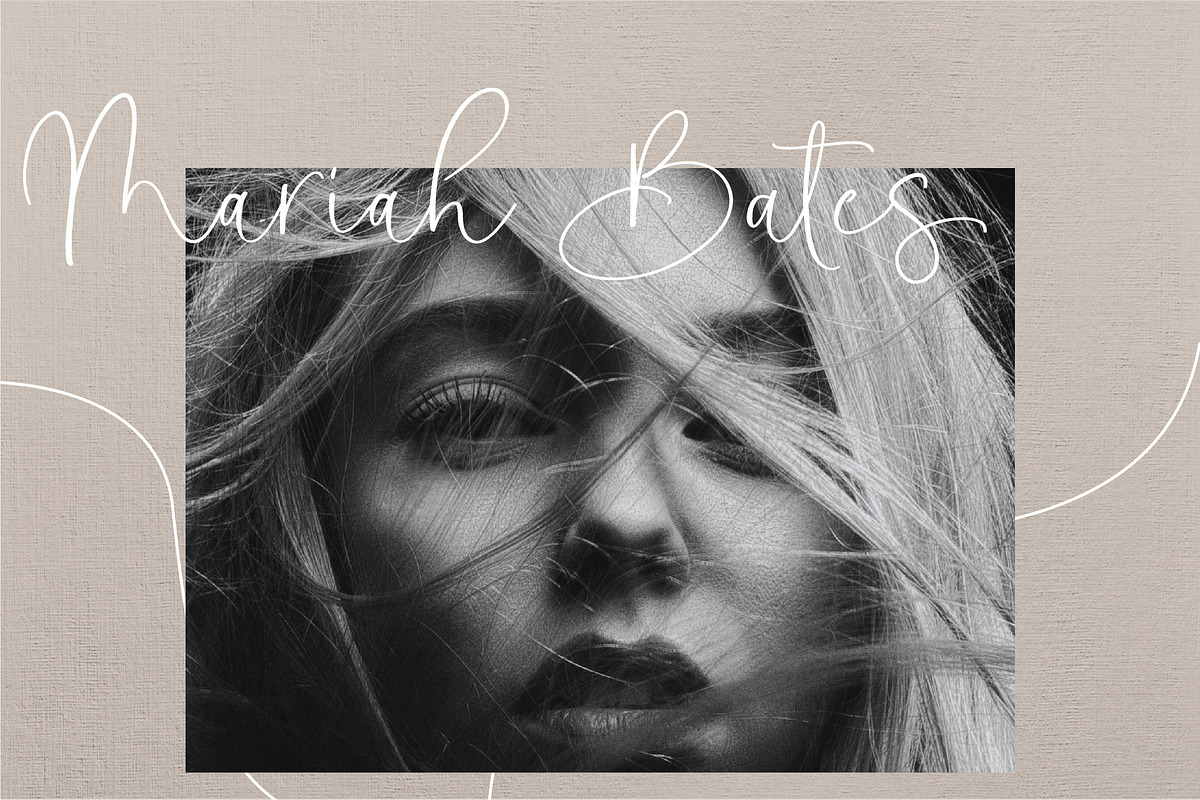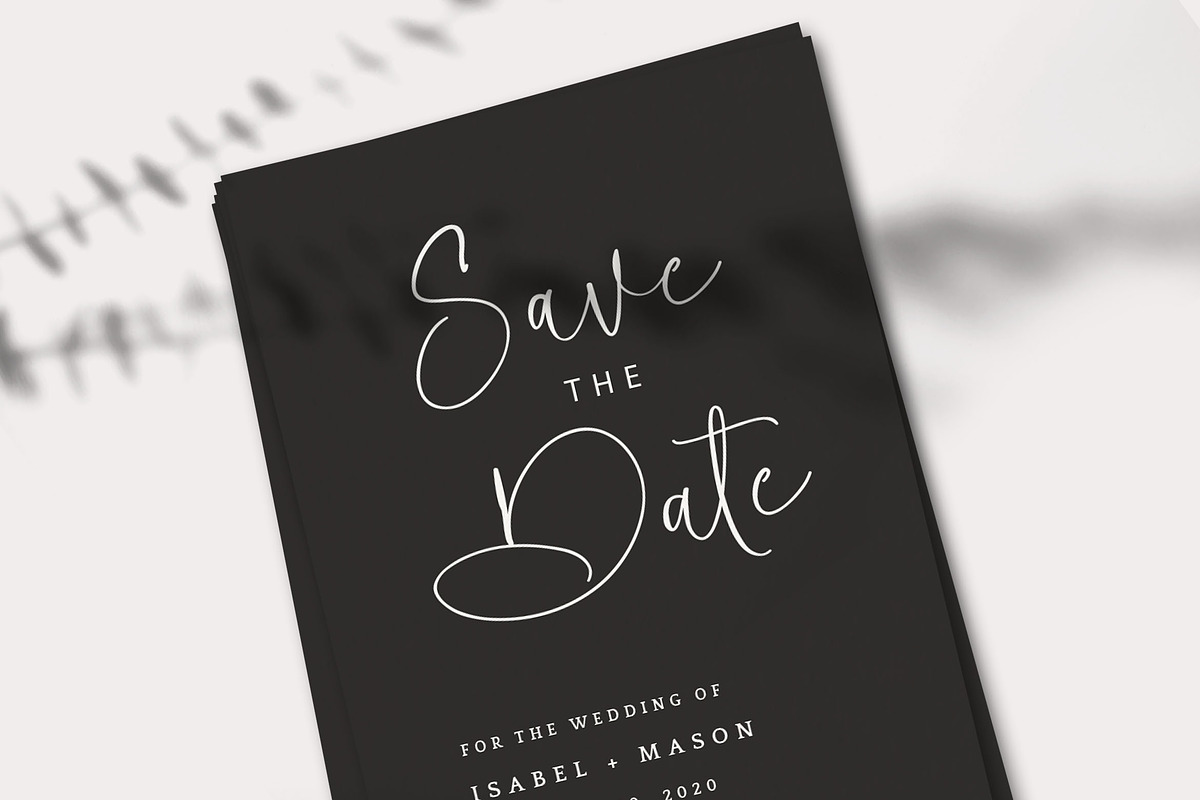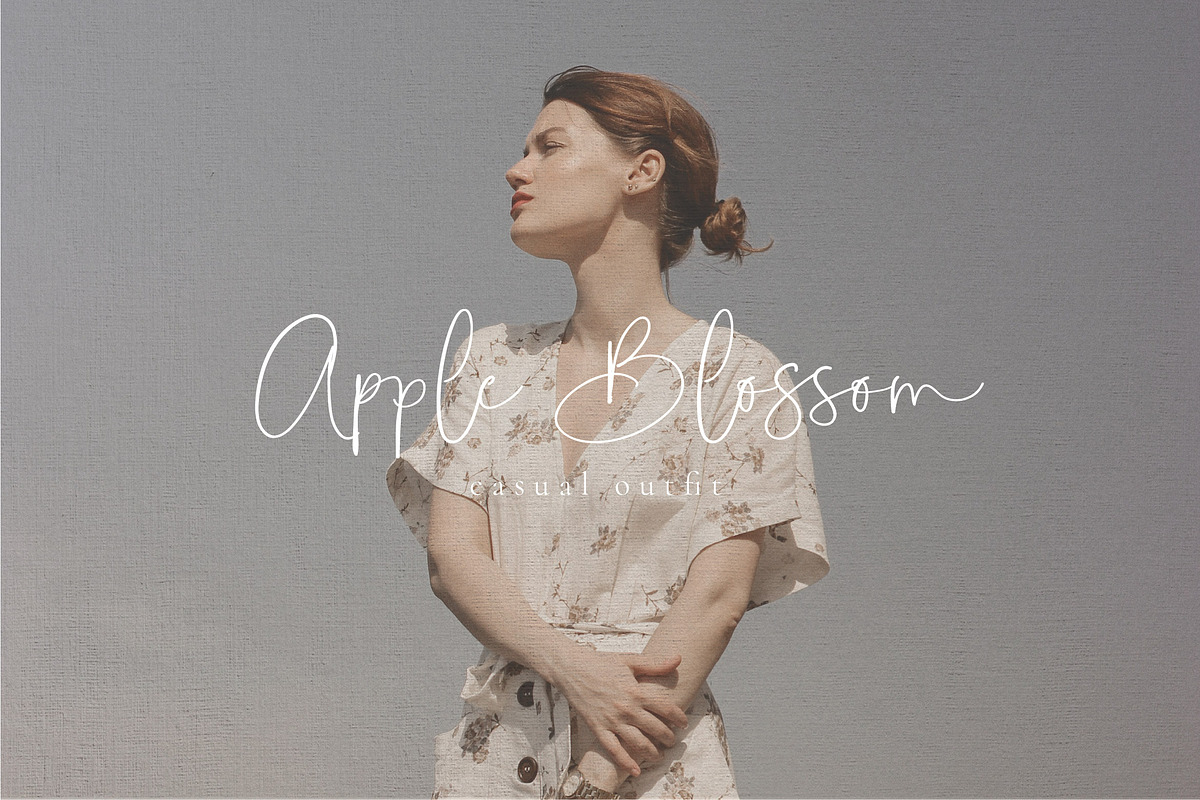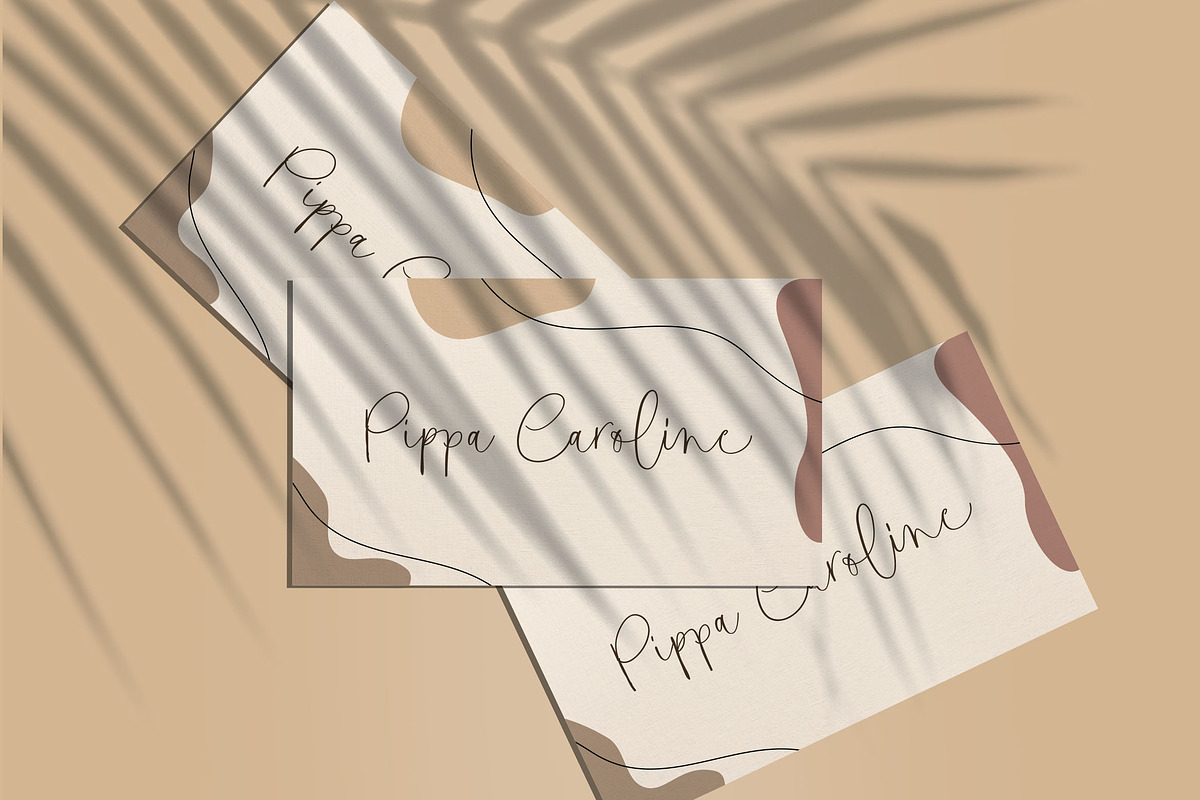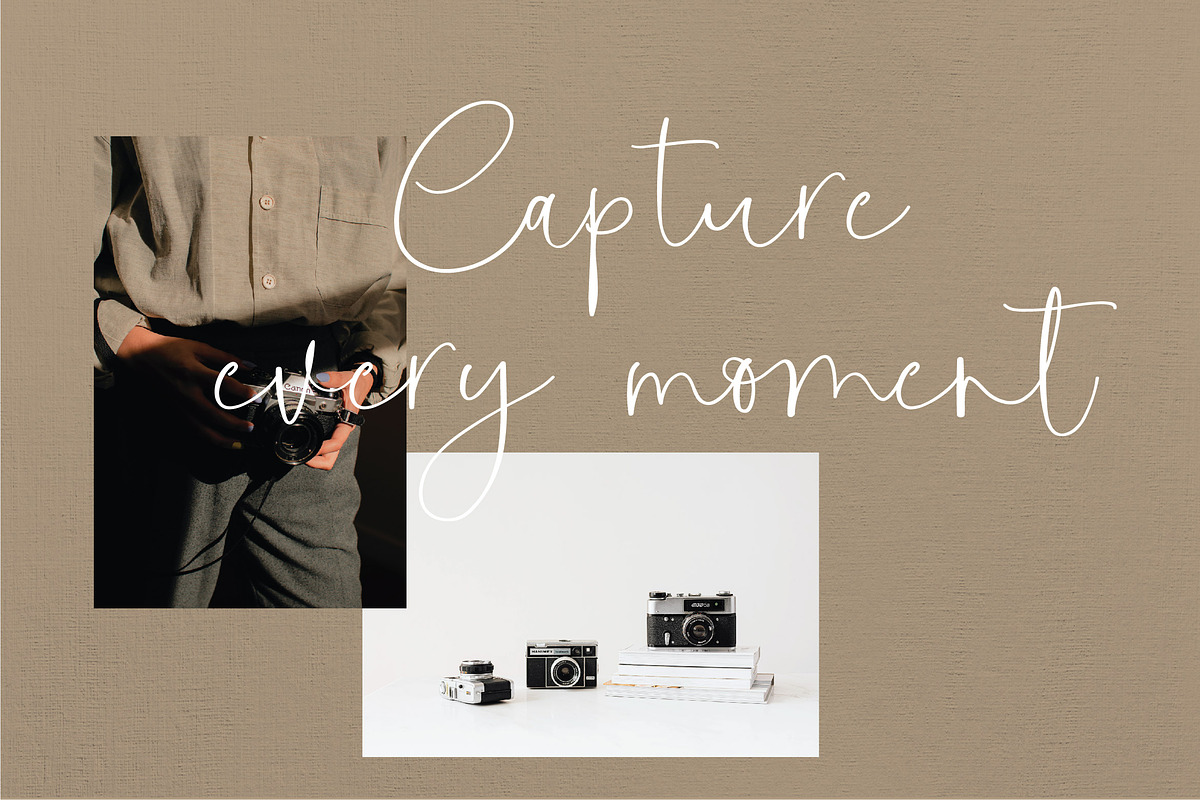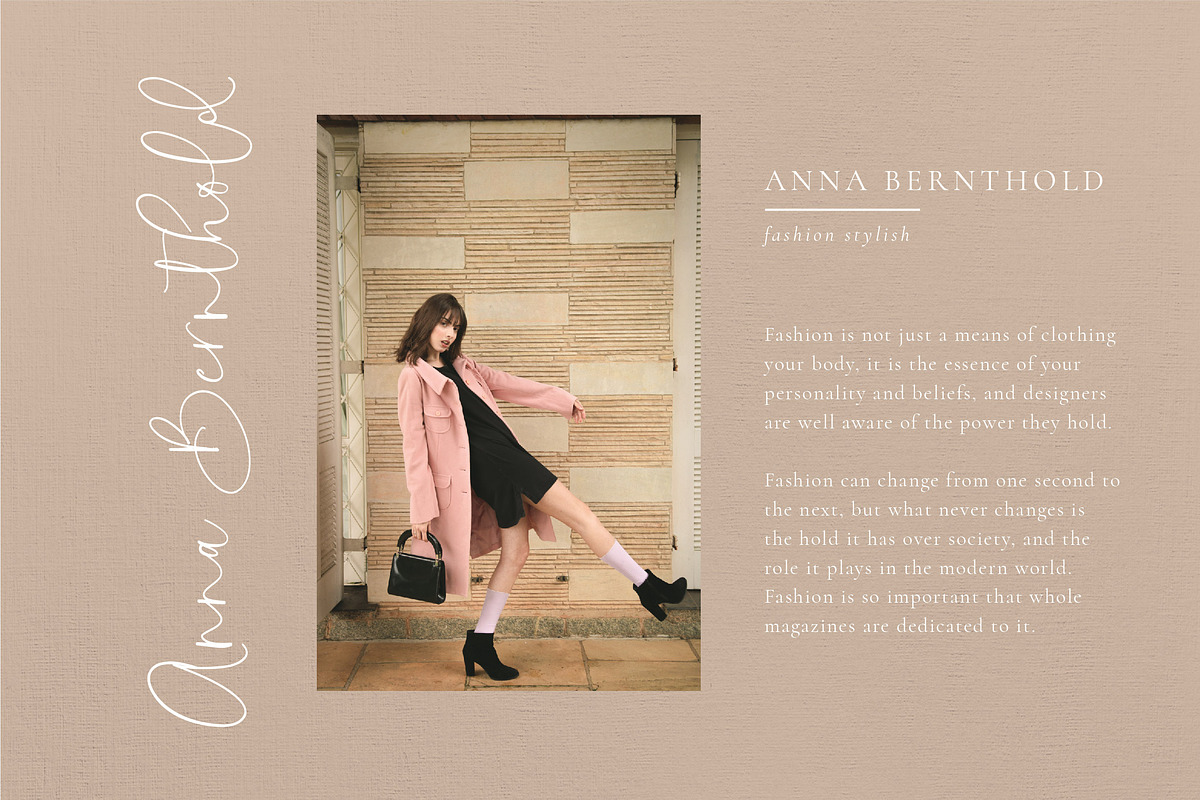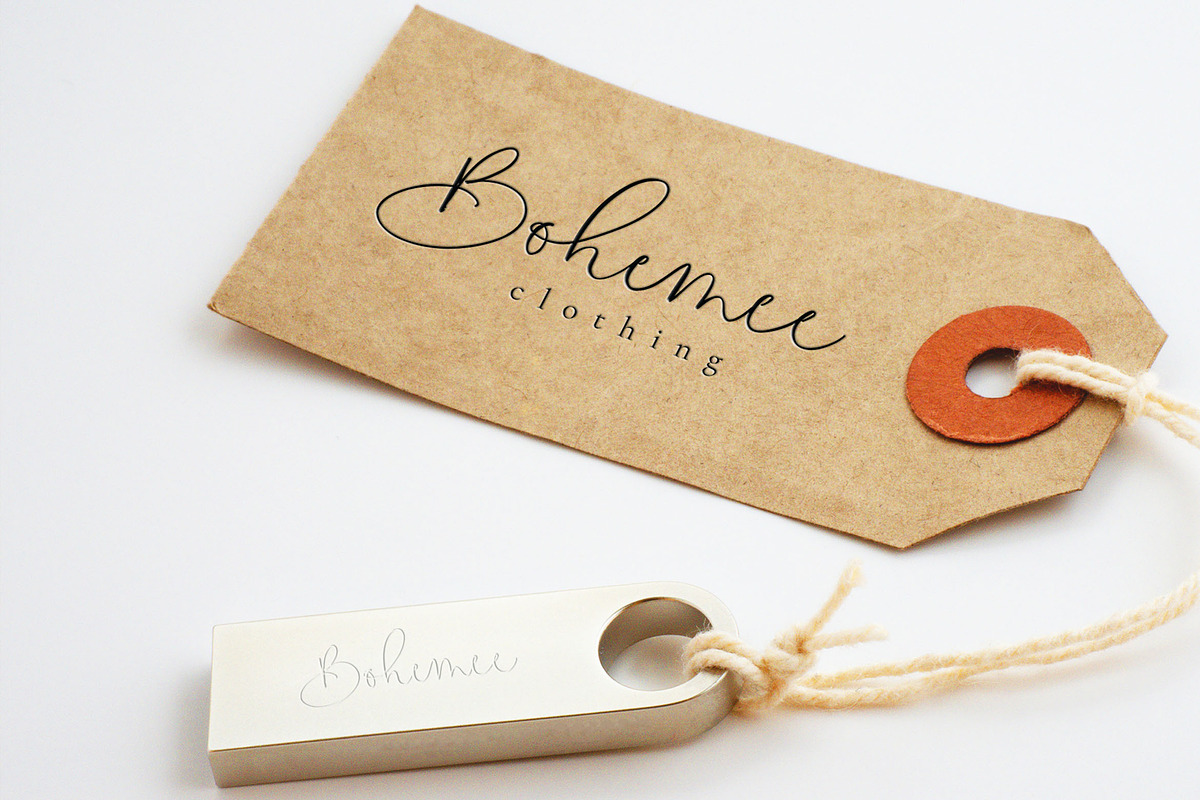
Antasilla Handwritten Font
Introducing Antasilla a stylish classy, contemporary pair of script and serif fonts.It is free-flowing, feminine, fashionable and friendly. Antasilla and unique design of your logo, blog, stationery, marketing, magazines and more.
Antasilla is a modern and elegant typeface with a bunch of ligatures and stylistic alternates that will make your logo, branding or your wedding invitation even more stunning. Antasilla is also support multilingual and already PUA Encoded!
Antasilla Handwritten Font by etigletters fits naturally into Branding, posters, packaging, typography.